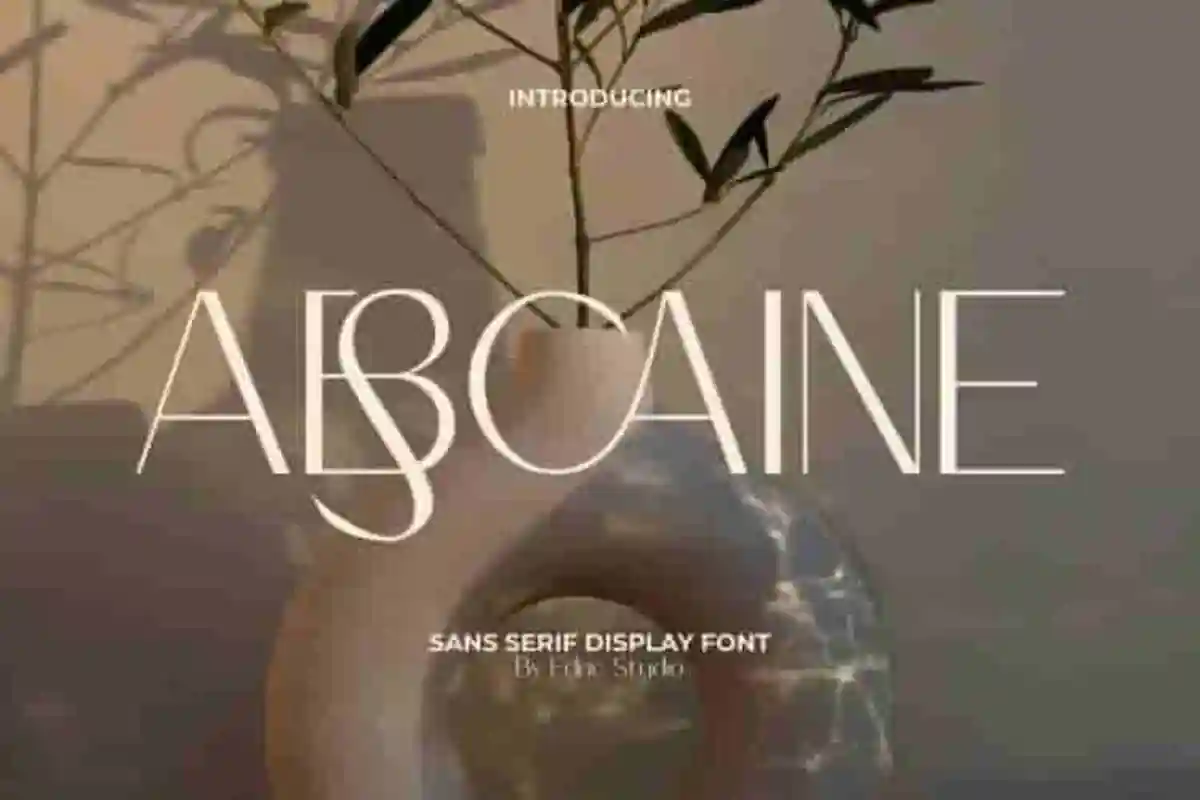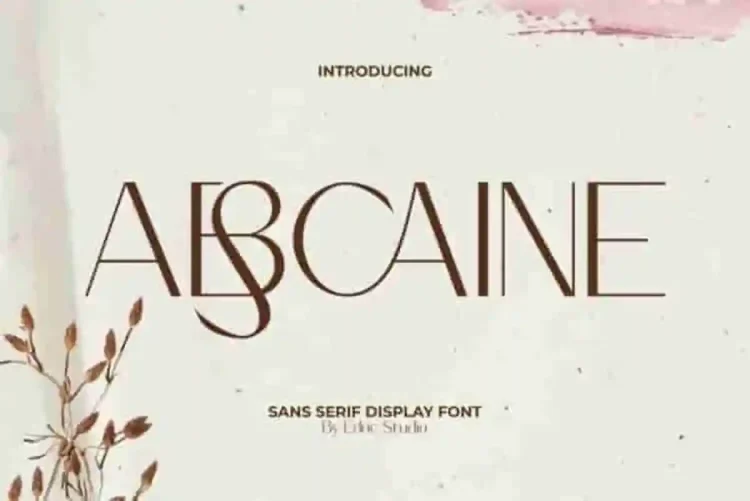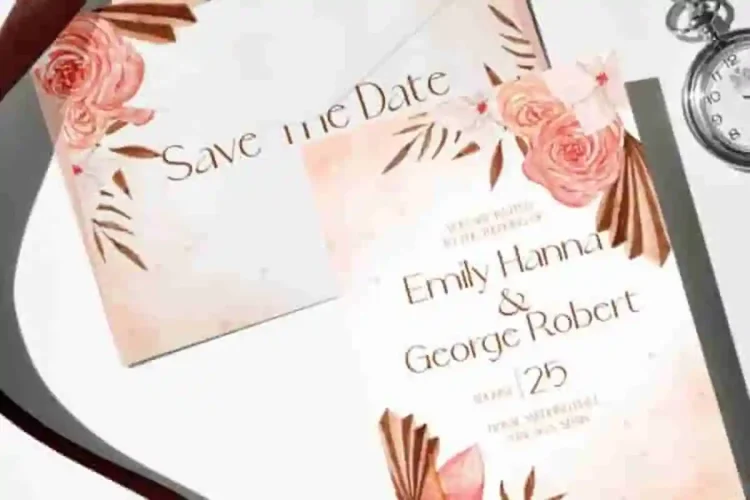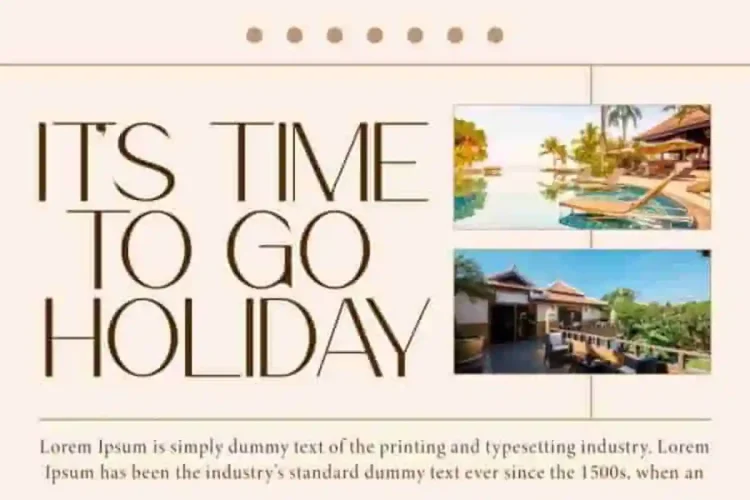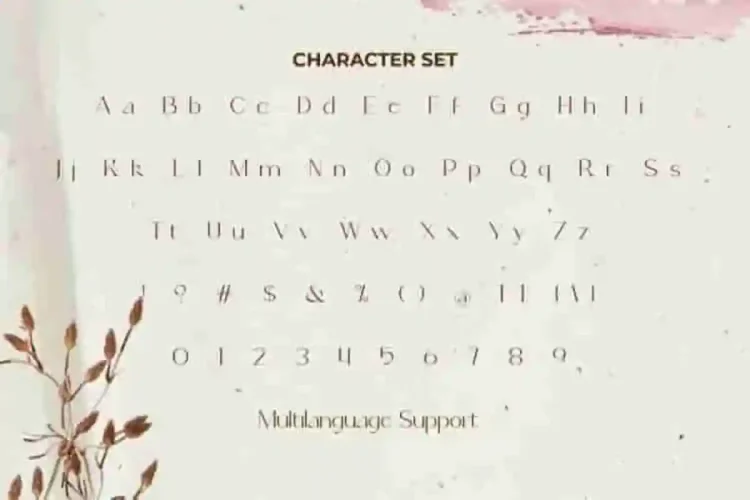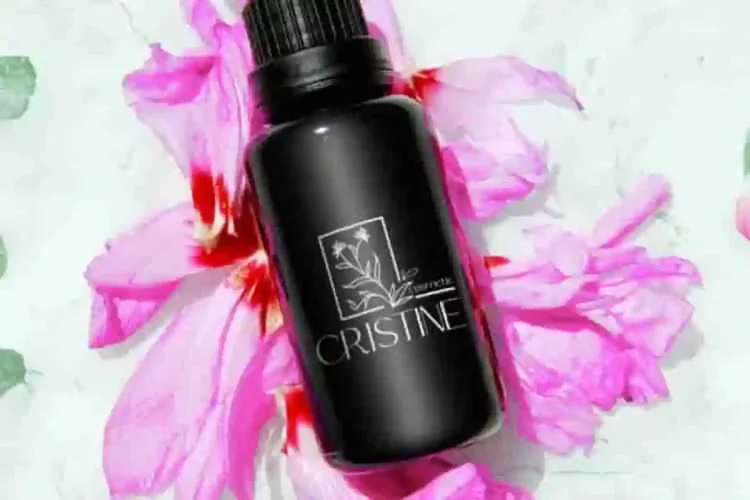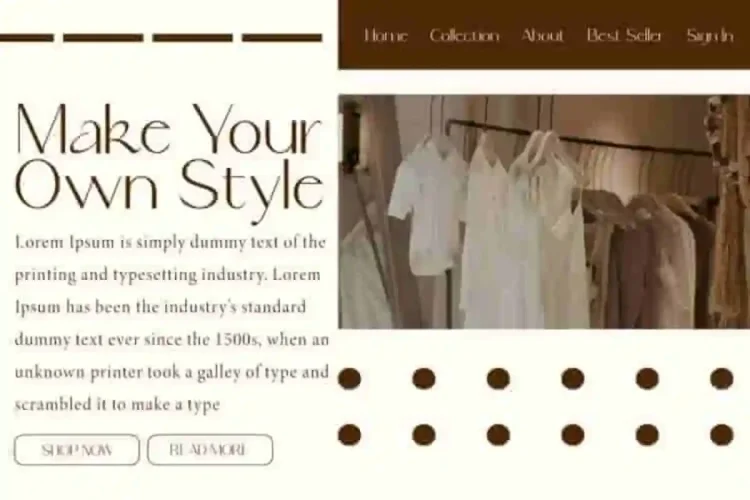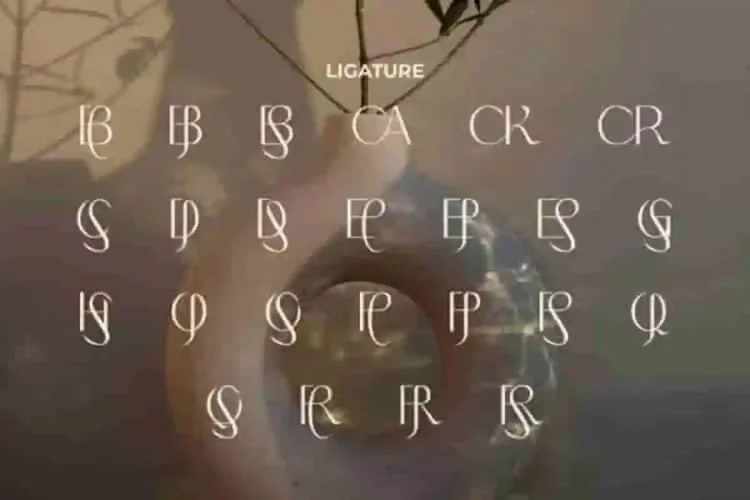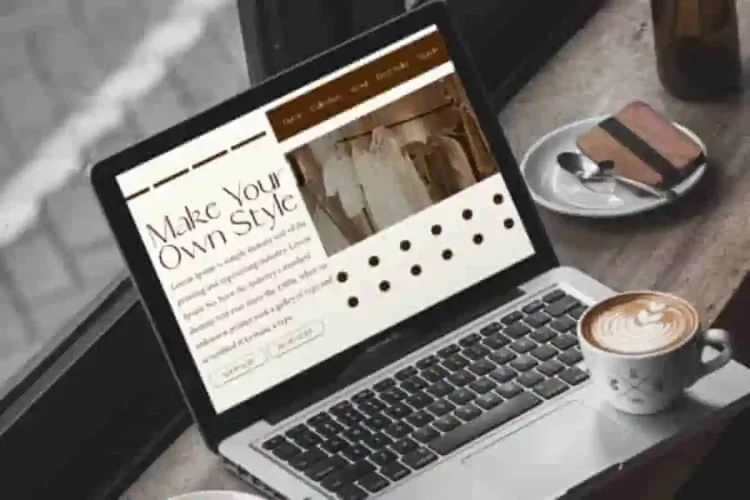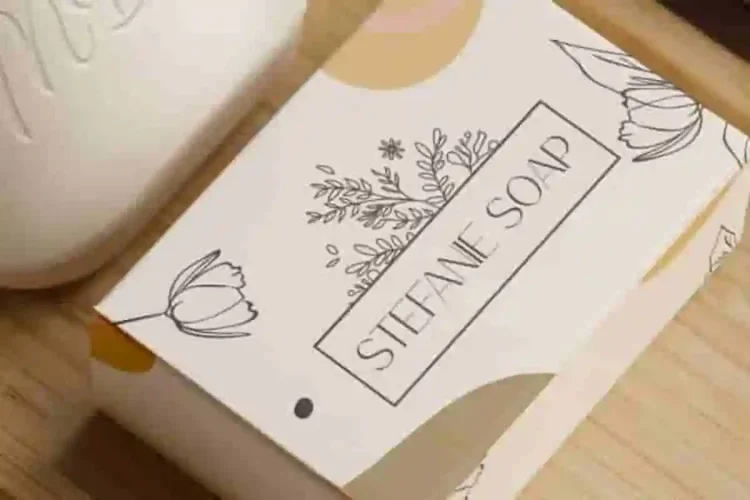
Abscaine Modern Display Font
Abscaine Modern Font is a chic and minimalist sans serif. This stylish display font is the perfect choice for designers who want to add class and cohesion to every project. Perfect for apps, blogs, brand logo, headers, invitation, label, product packaging, title, watermarks, website, and more.
Abscaine Display Font Comes with a complete set of Uppercase and Lowercase Letters, Numbers, Punctuation, Symbols and Ligature. Either way makes this font the perfect partner for any project. Perfect for accommodation holiday, bridal boutique, coffee shop, clothing brand, fashion, fragrance brand, graphic designer, handicraft, wedding, and more.
Abscaine Font a playful typeface with unique decoration in each character. Combine different characters for a bespoke, handcrafted feel. It’s tested to work well in the Adobe Apps (Illustrator, Adobe InDesign, Adobe Photoshop) even work on Microsoft Word. All of these characters are available through the glyph panel, moreover each letter has its own unicode (PUA) so you can access all the characters easily.